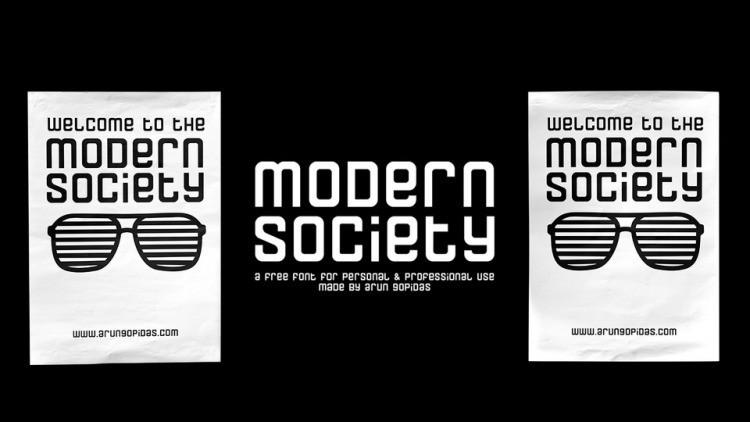
Thank you for looking Modern Society Font. This is a display sport typeface, and is creator logo typeface, very easy to use. You just type the logo that you want to make, you can also see the character map to make it easier.
It’s a monospaced, grid based display typeface with a single weight & constant height designed by Arun Gopidas. It has two moods: formal & informal. It’s perfect for branding projects, logo, wedding designs, social media posts, advertisements, product packaging, product designs, label, photography, watermark, invitation, stationery and any projects that need sans-serif taste.